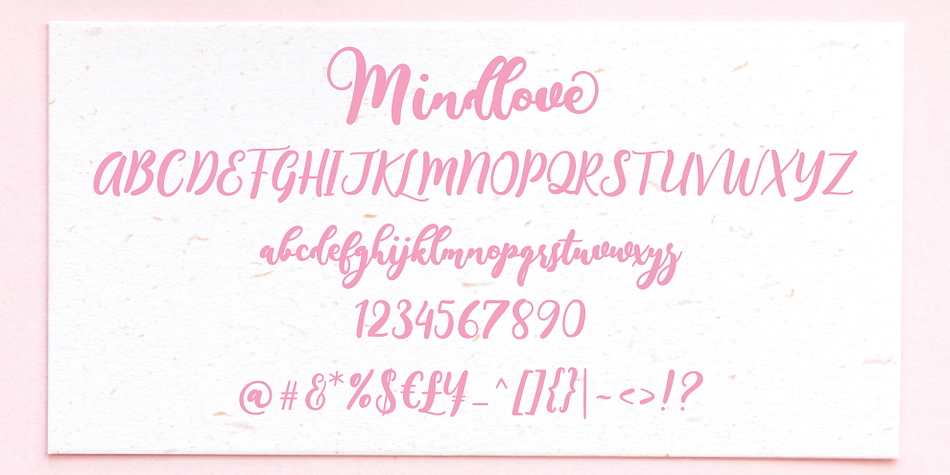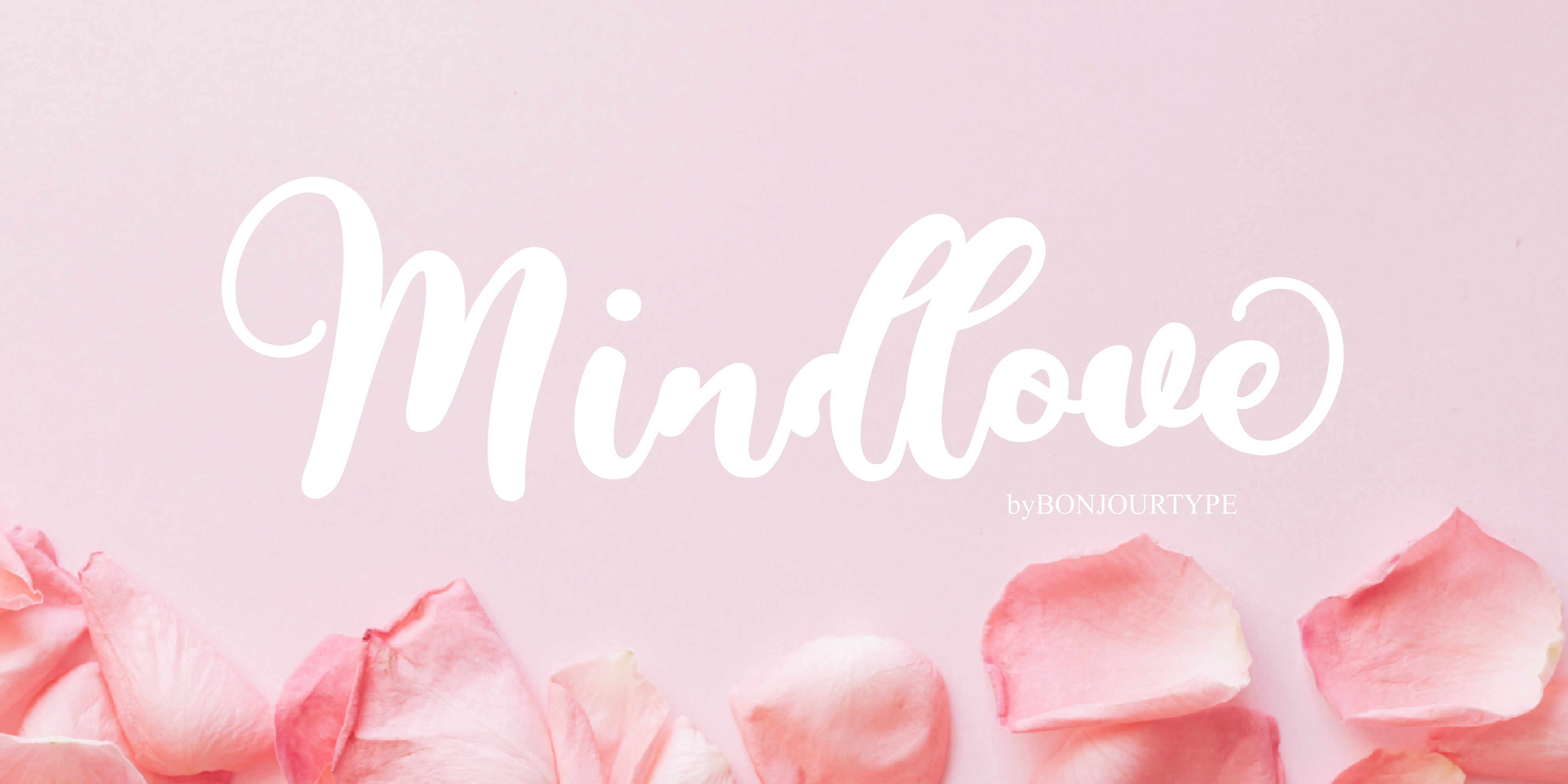
Mindlove Script
Designed by Rachma BT and Raban Panton, Mindlove Script is a modern calligraphy and script font published by Bonjour Type.
Proudly Present, Mindlove Font.
Mindlove Script is is a beautiful and unique typeface. It includes amazing swashes which will add an elegant touch to your designs.
Fonts featured : Uppercase, Lowercase, Numbers, Symbols, Accents, Stylistic Alternates, Swashes, and Ligatures. Mindlove also multilingual support
Foundry Bonjour Type
Styles Modern Calligraphy, Script
Designers Rachma BT, Raban Panton